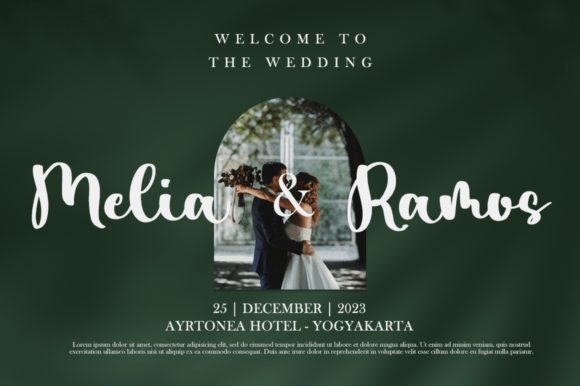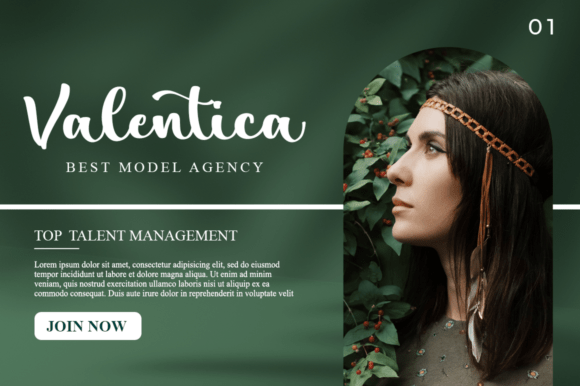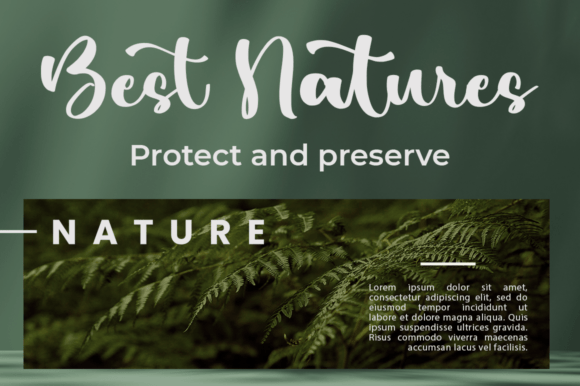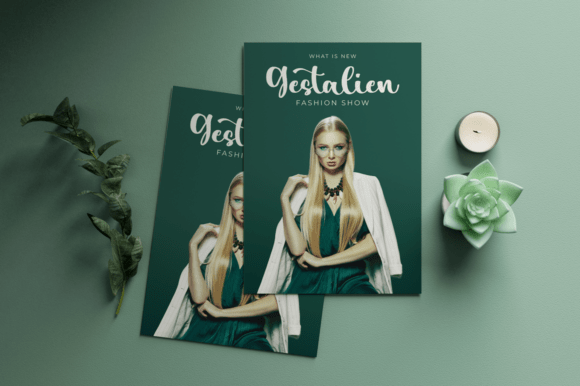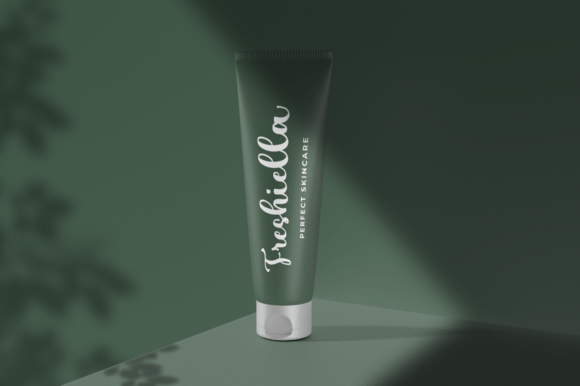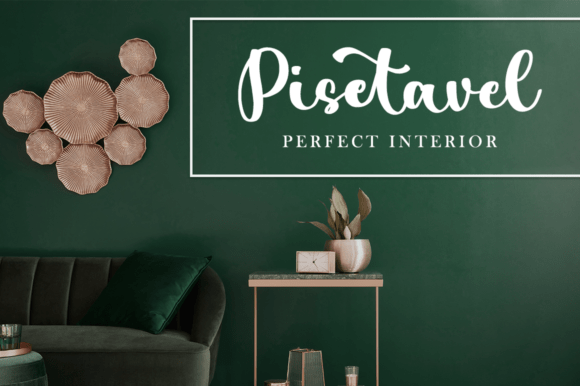
The Quest for the Perfect Handwritten Font: Discovering Femontesa
I’ll never forget the design project that led me to Femontesa Font. I was working on a social media campaign for a client who wanted a playful, girly vibe. I spent hours scouring font libraries, but nothing seemed quite right. That was until I stumbled upon Femontesa – a handwritten script font with a cute, effortless charm that instantly captured the tone I was looking for.
First Impressions: A Love Letter to Femontesa
Femontesa Font is a beautiful, imperfect script that adds a touch of whimsy to any design project. Here’s what I love about it:
- ✨ Unique, hand-crafted feel that’s perfect for creating social media posts, greeting cards, or quotes
- ✅ Easy to read, even at smaller font sizes
- 💕 Cute, girly style that’s ideal for feminine brands or personal projects
- 🎨 Highly versatile – use it for t-shirts, mugs, stickers, totes, or any design project that needs a personal touch
Honest Review: A Few Quirks to Consider
While Femontesa Font is a stunning addition to any design project, there are a few quirks to keep in mind:
- 🤔 Some letters may appear a bit uneven or imperfect, which can be a deliberate design choice but might not suit every project
- ⚠️ Limited character set compared to more comprehensive fonts – make sure to check the glyphs and OpenType features
The Story Behind Femontesa Font
Femontesa Font was created with the intention of capturing the imperfect, effortless charm of handwritten script. The designer aimed to create a font that felt approachable, friendly, and feminine – perfect for a wide range of design projects.
| Font Name | Femontesa Font |
| Author | RockboyStudio |
| What type of projects is Femontesa Font best suited for? | Femontesa Font is perfect for social media posts, greeting cards, t-shirts, mugs, stickers, totes, or any design project that needs a personal, handwritten touch. |
| Is Femontesa Font suitable for body text? | While Femontesa Font is easy to read, it’s best suited for headlines, titles, or short paragraphs. For longer body text, a clearer font might be more suitable. |